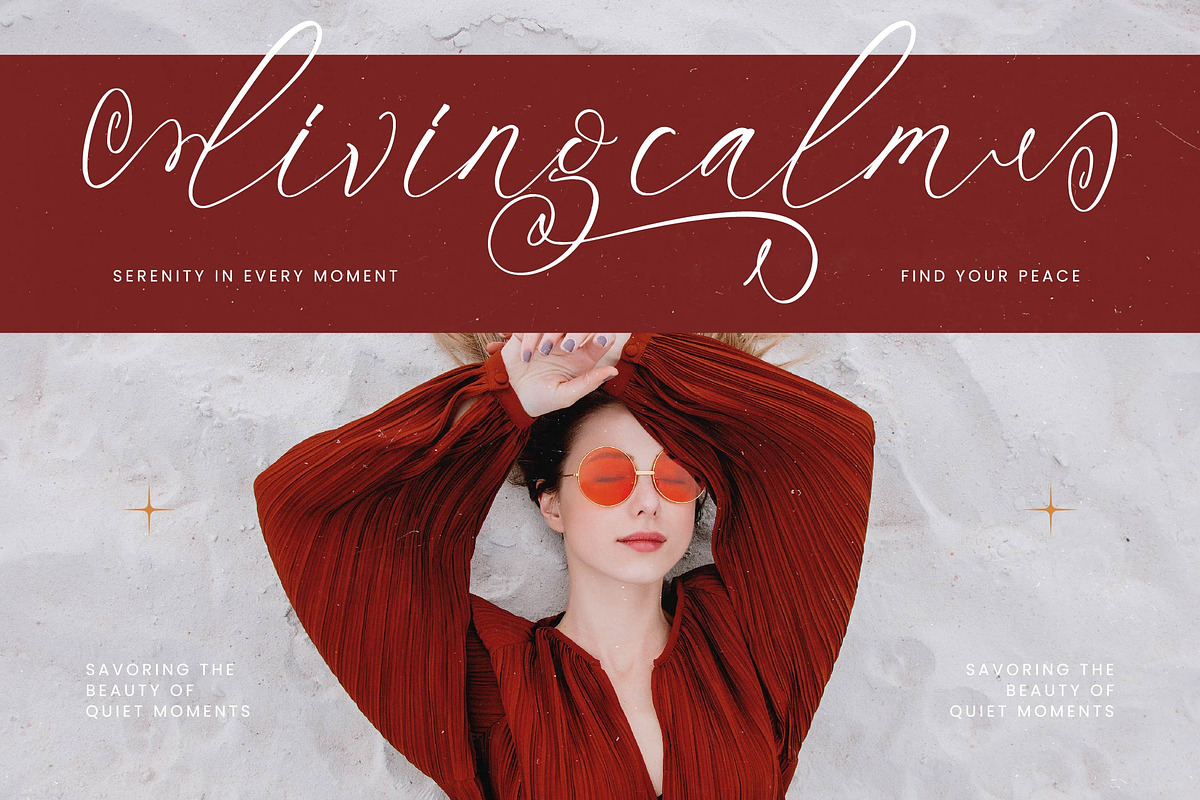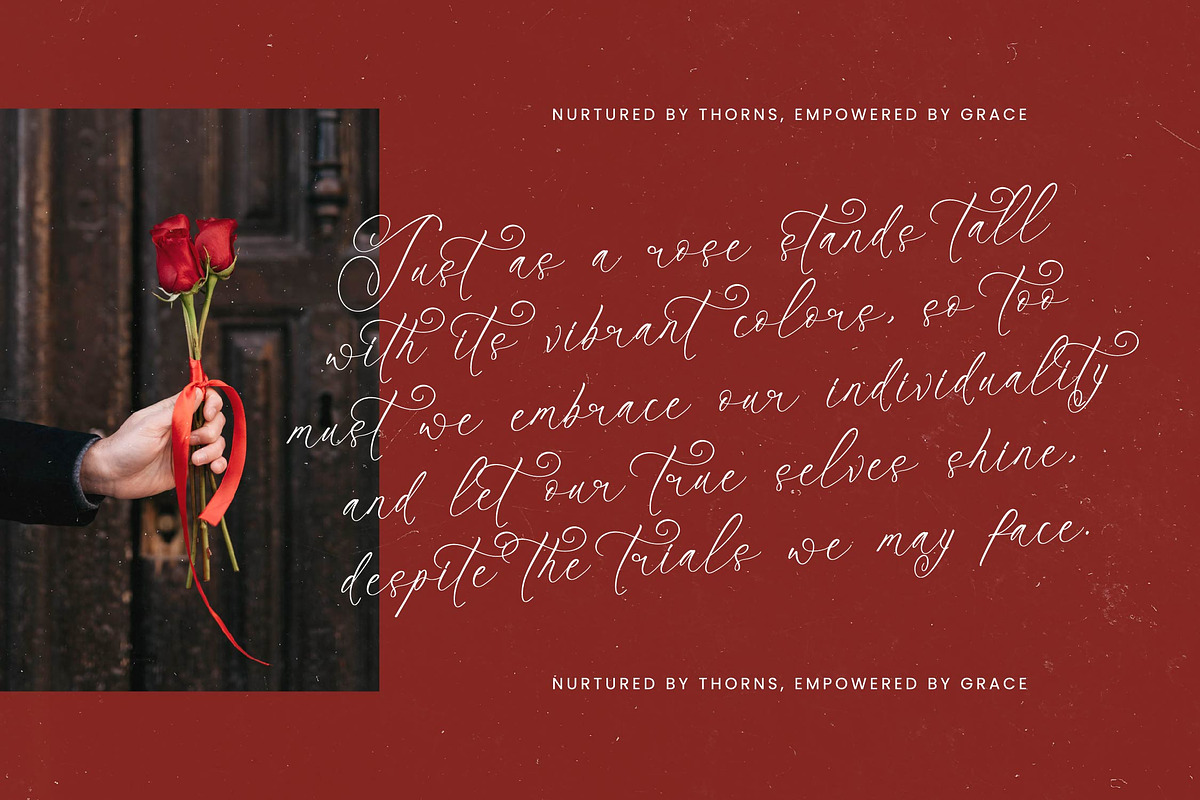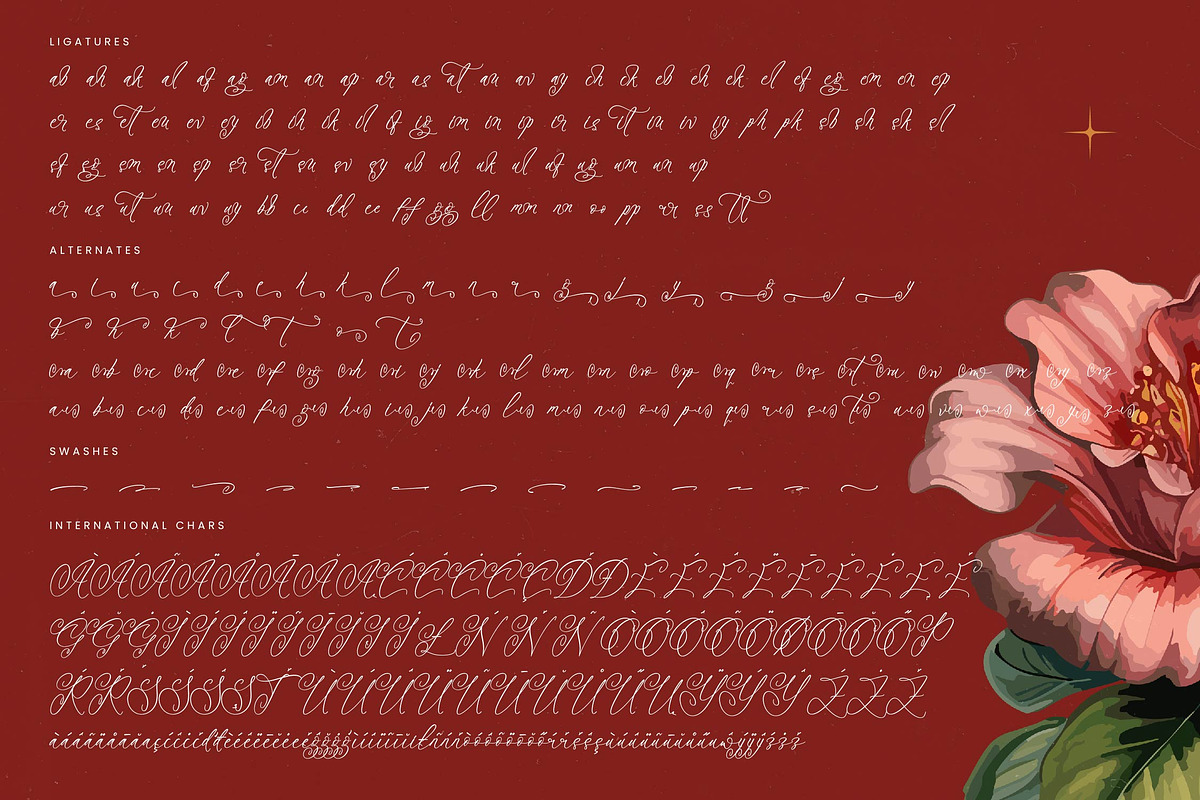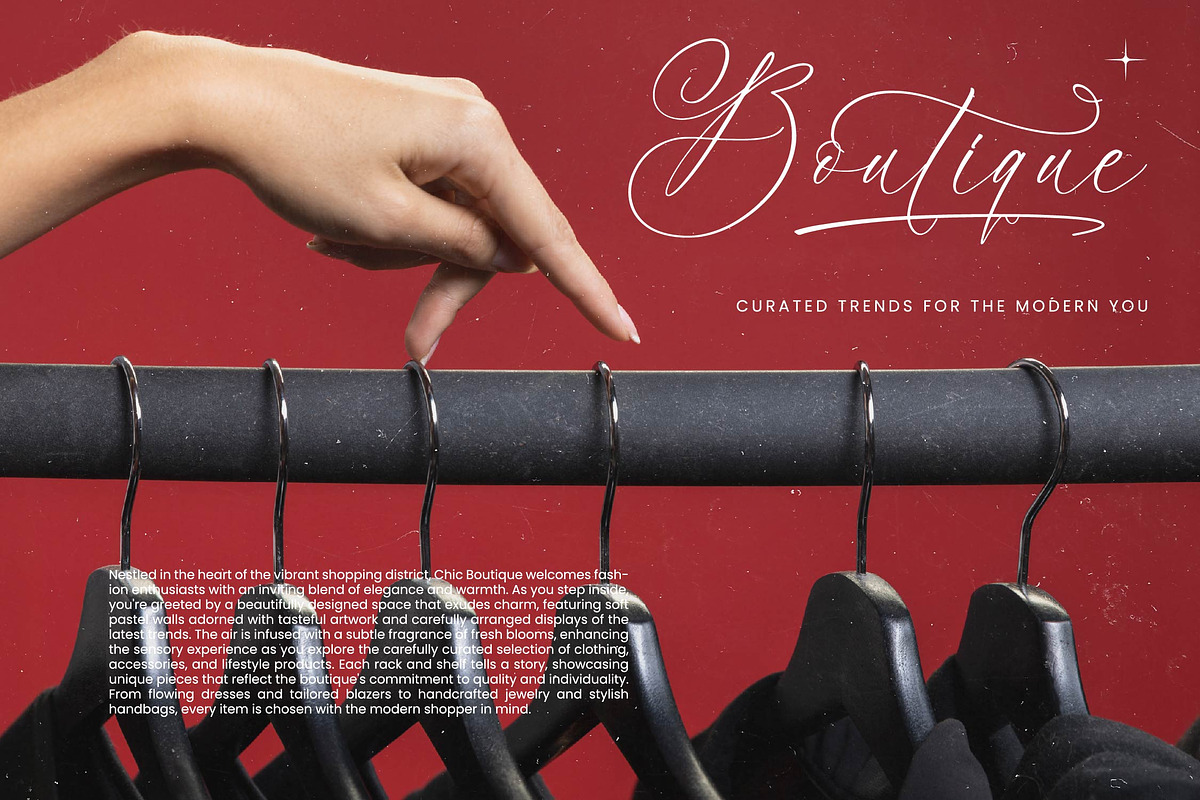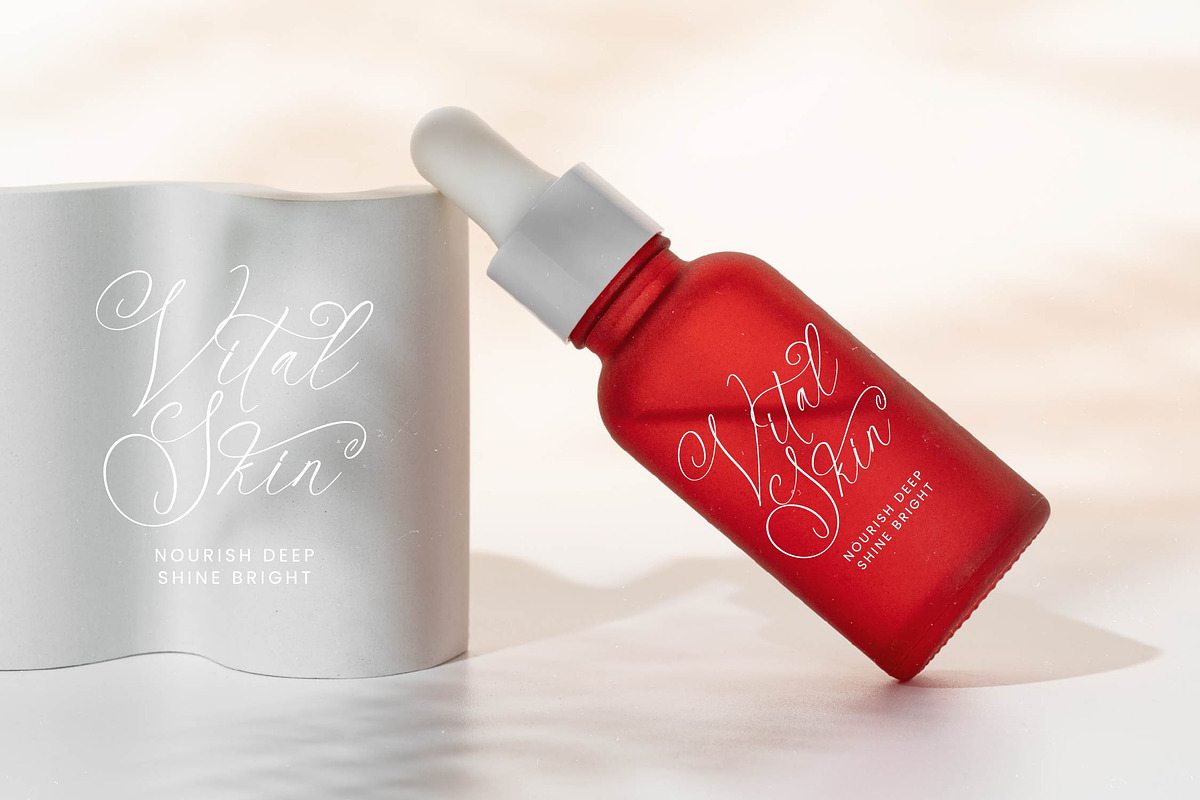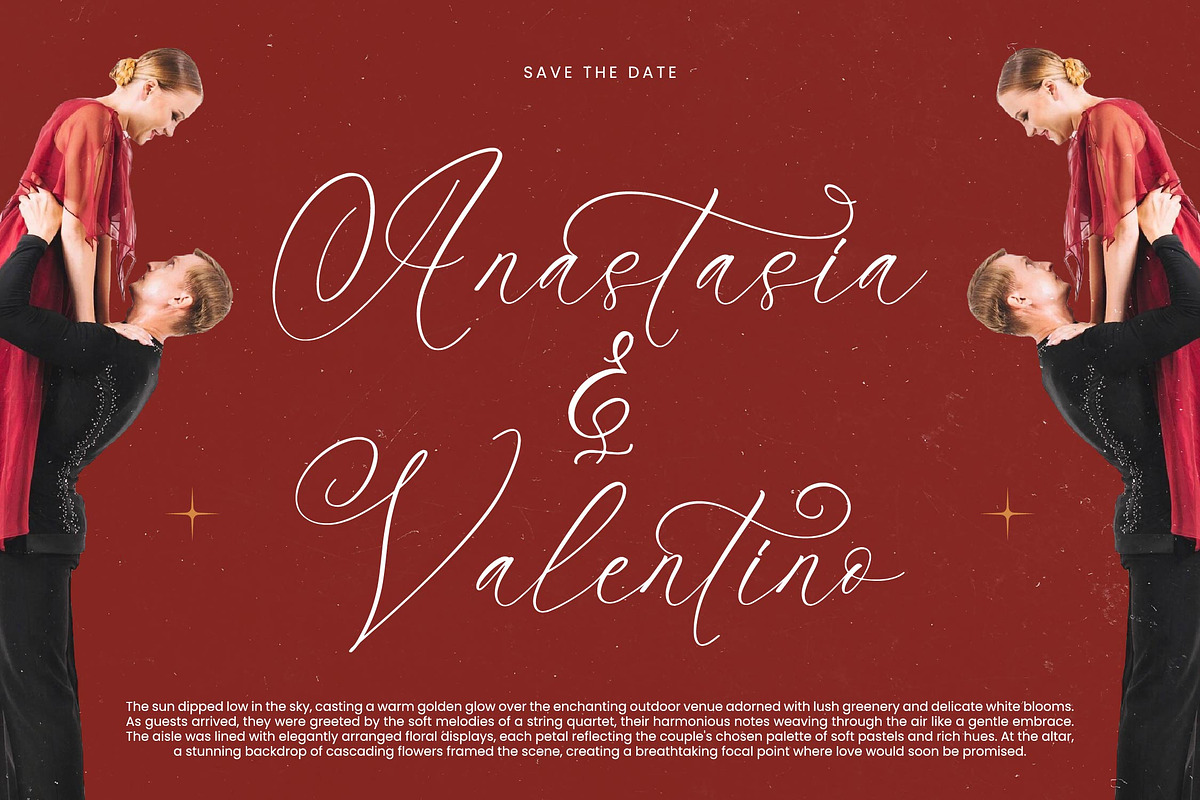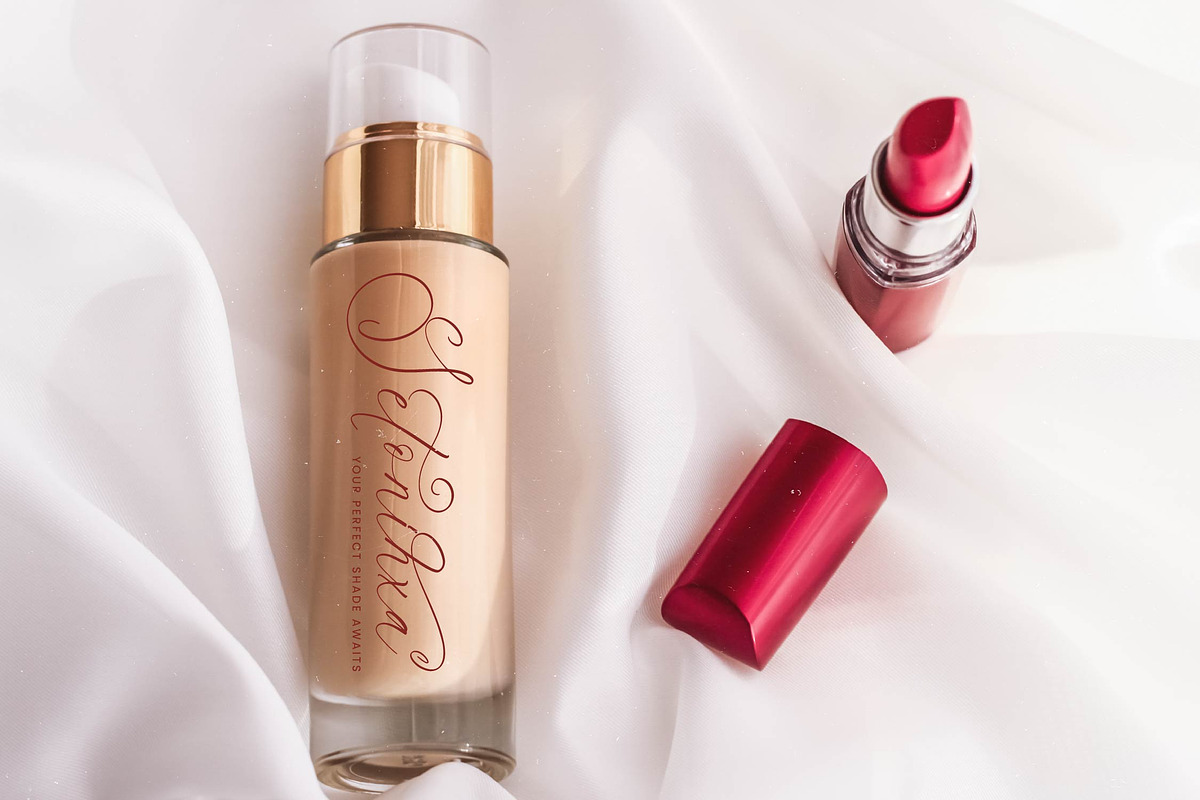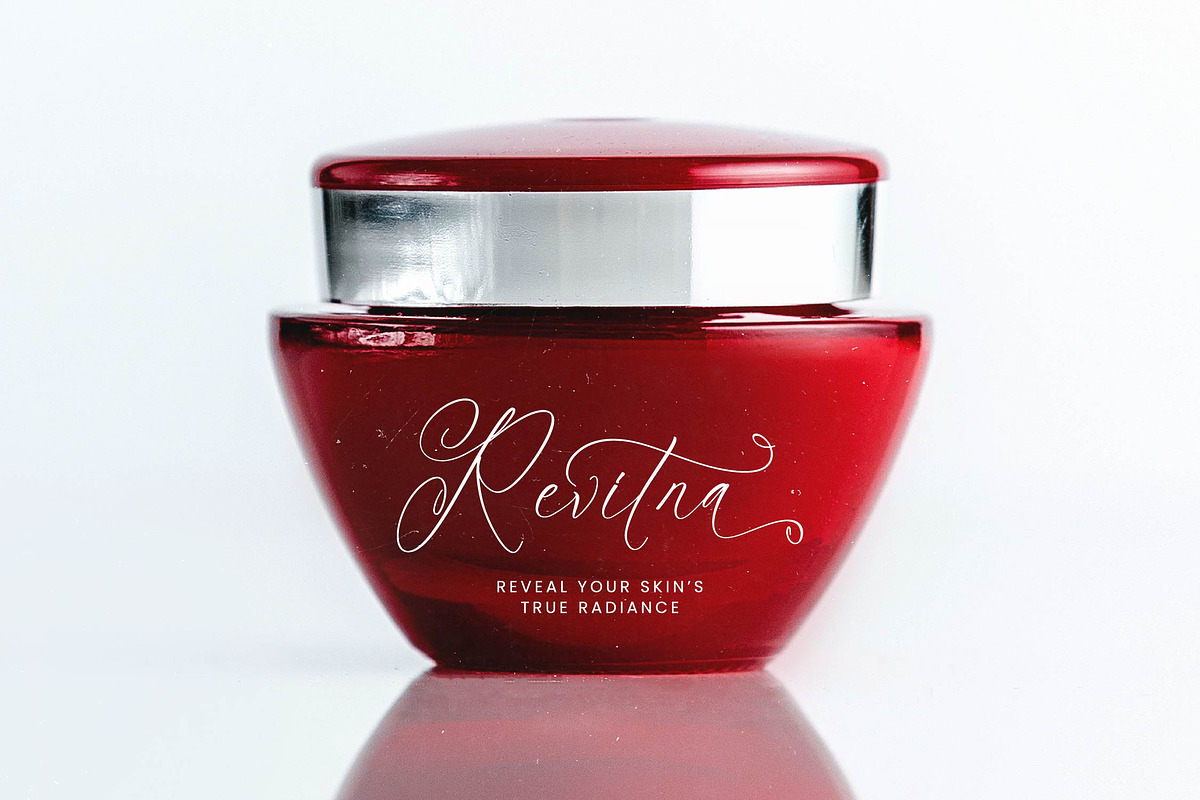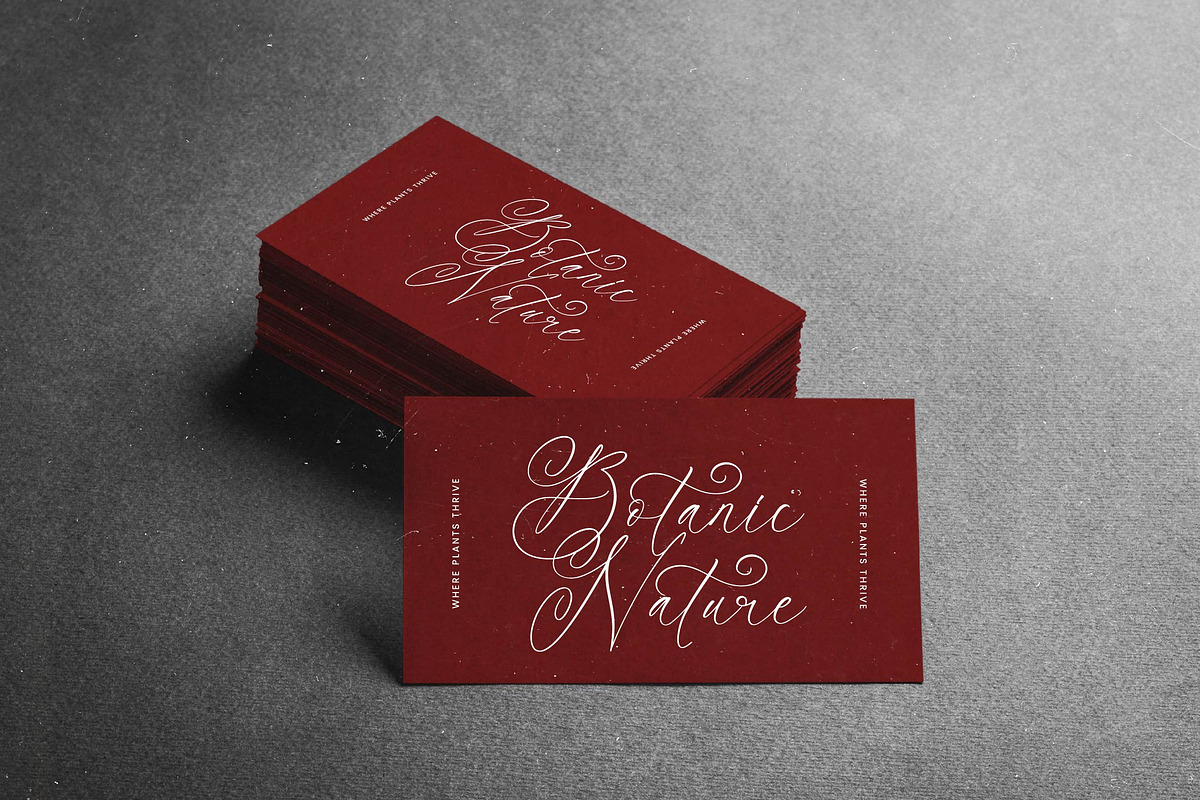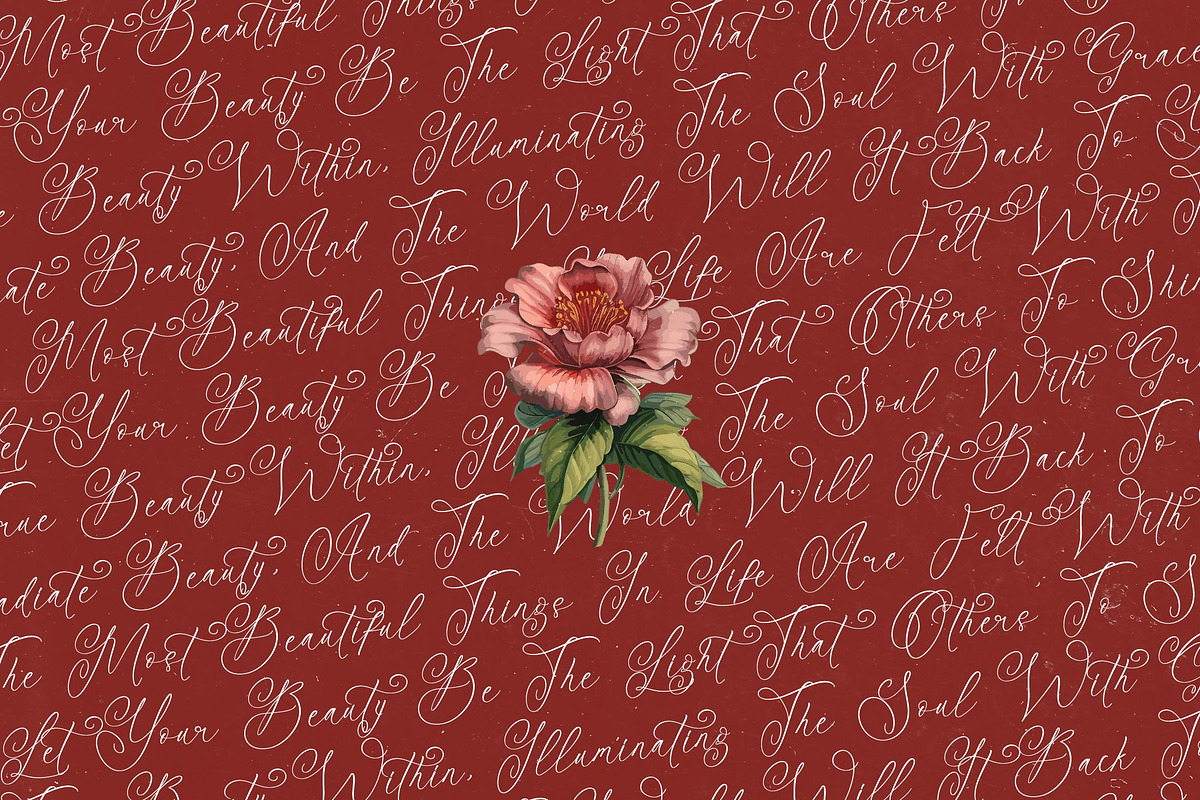
Notheli Dahlia Stylish Beauty Script
Notheli Dahlia - Stylish Beauty Script Font , from Stylishtype.Co , Suitable for any projects such as: logos, branding projects, homeware designs, product packaging, mugs, quotes, posters, shopping bags, t-shirts, book covers, name card, invitation cards, greeting cards, label, photography, watermark, special events, and all your other luxury and beautiful projects that need a Luxury Script taste.
- 92 Ligature 77 Alternates & 13 Swashes